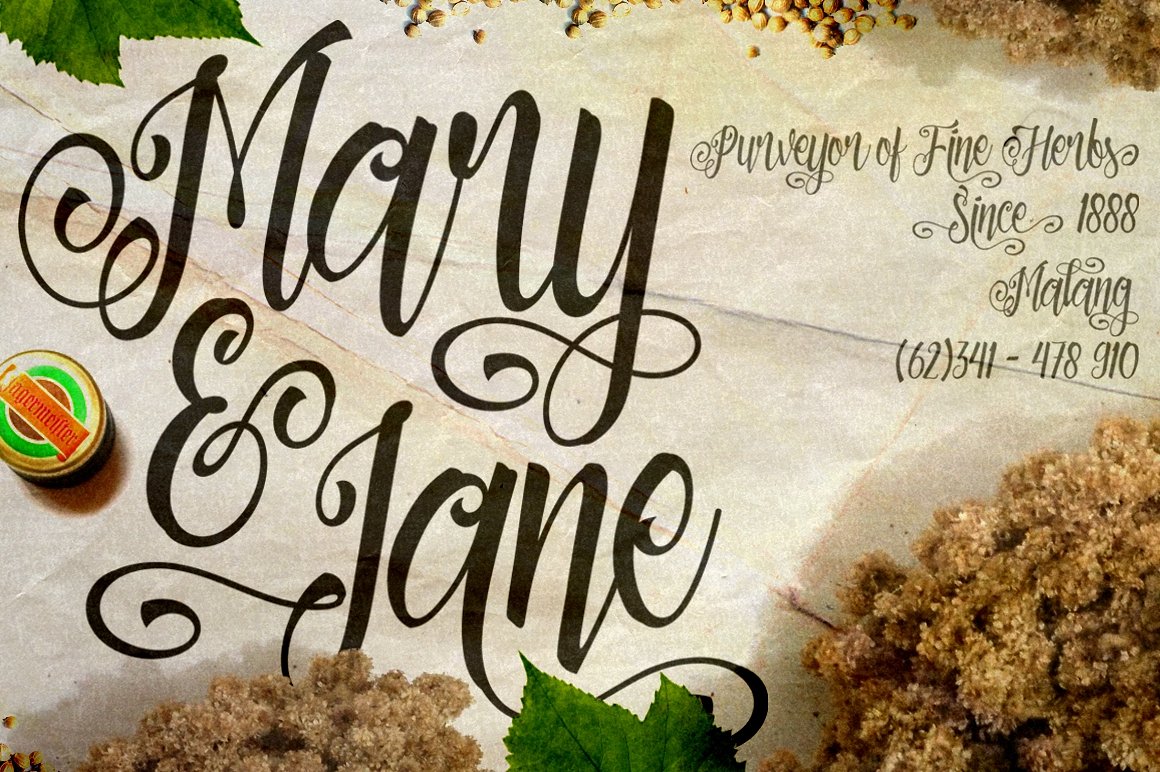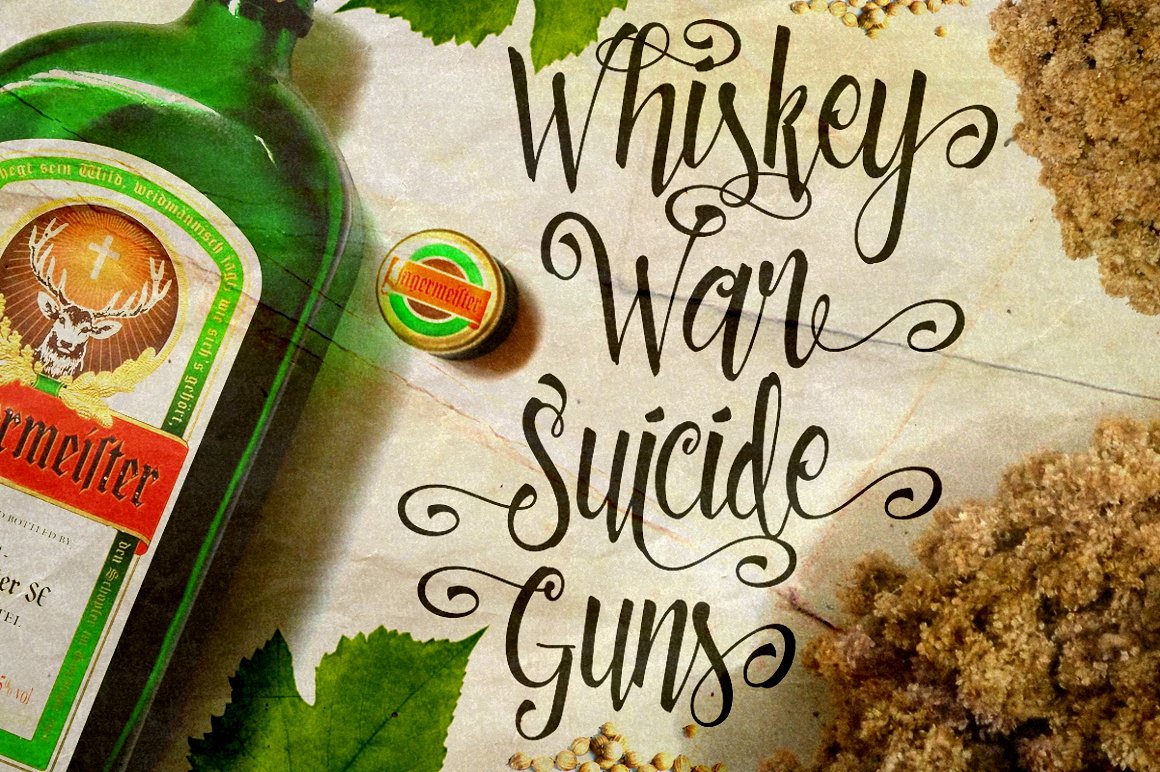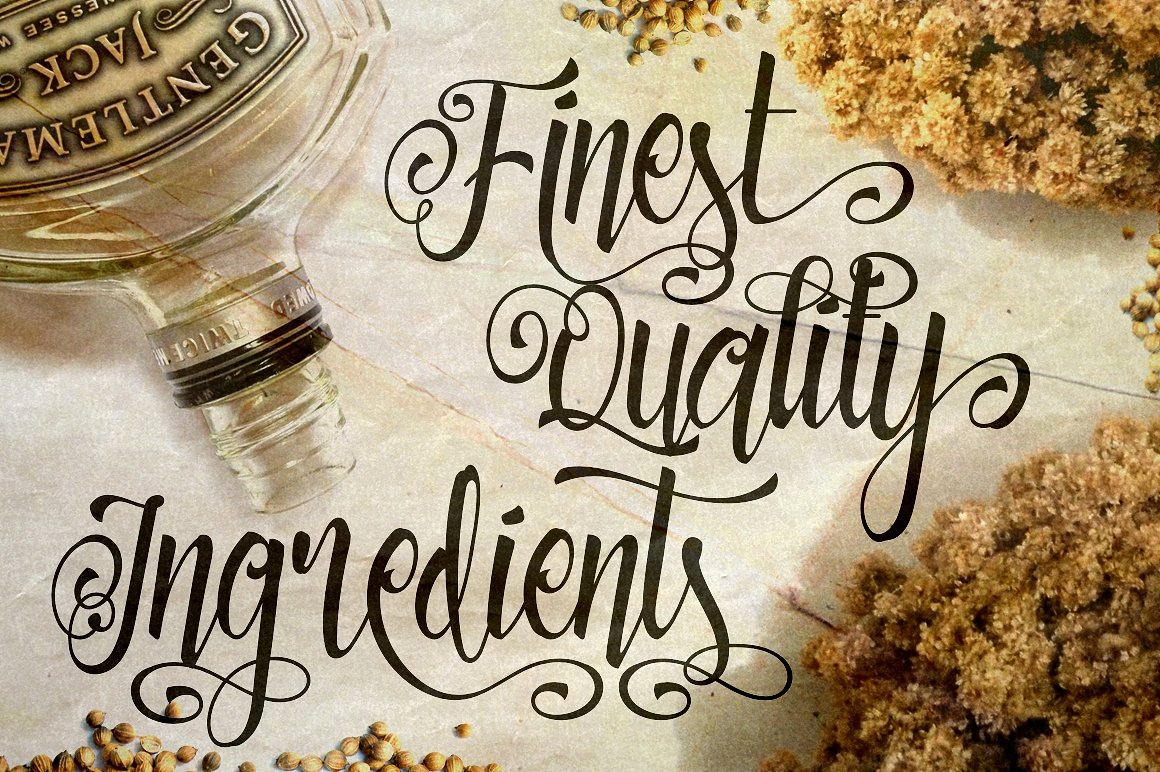
Patronia Calligraphy Font
Patronia – is an handwritten script font created and shared by Twicolabs Fontdation. Patronia Script is a brush-lettering inspired script typeface that combined thick and thin lines, loose and tight kerning and unique baseline combinations for genuine hand-writing feels. Patronia suitable for this use in you for the signature, logotype, invitation cards, quotes art, website header design, packaging, branding and more. This font is always exciting to design you create.